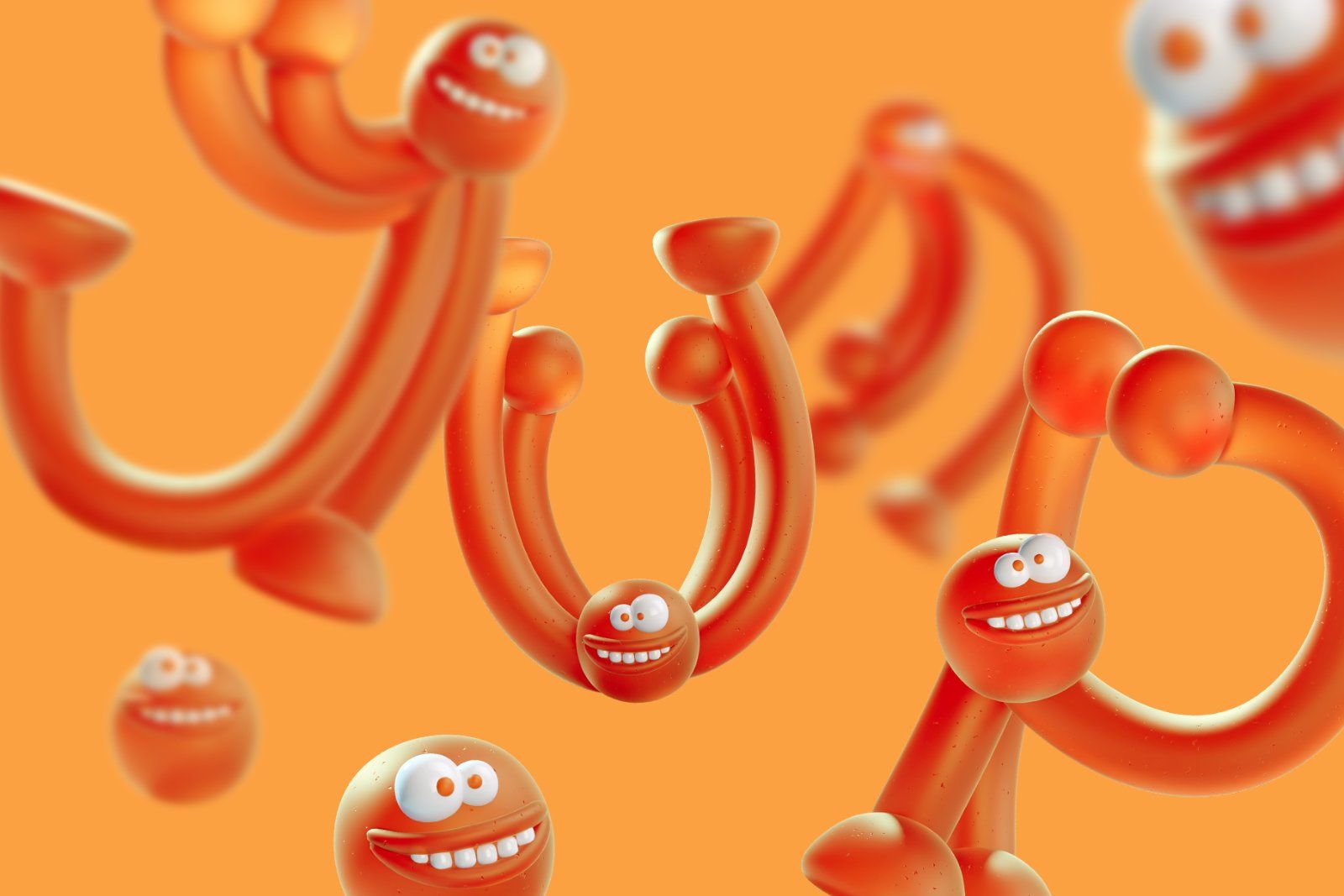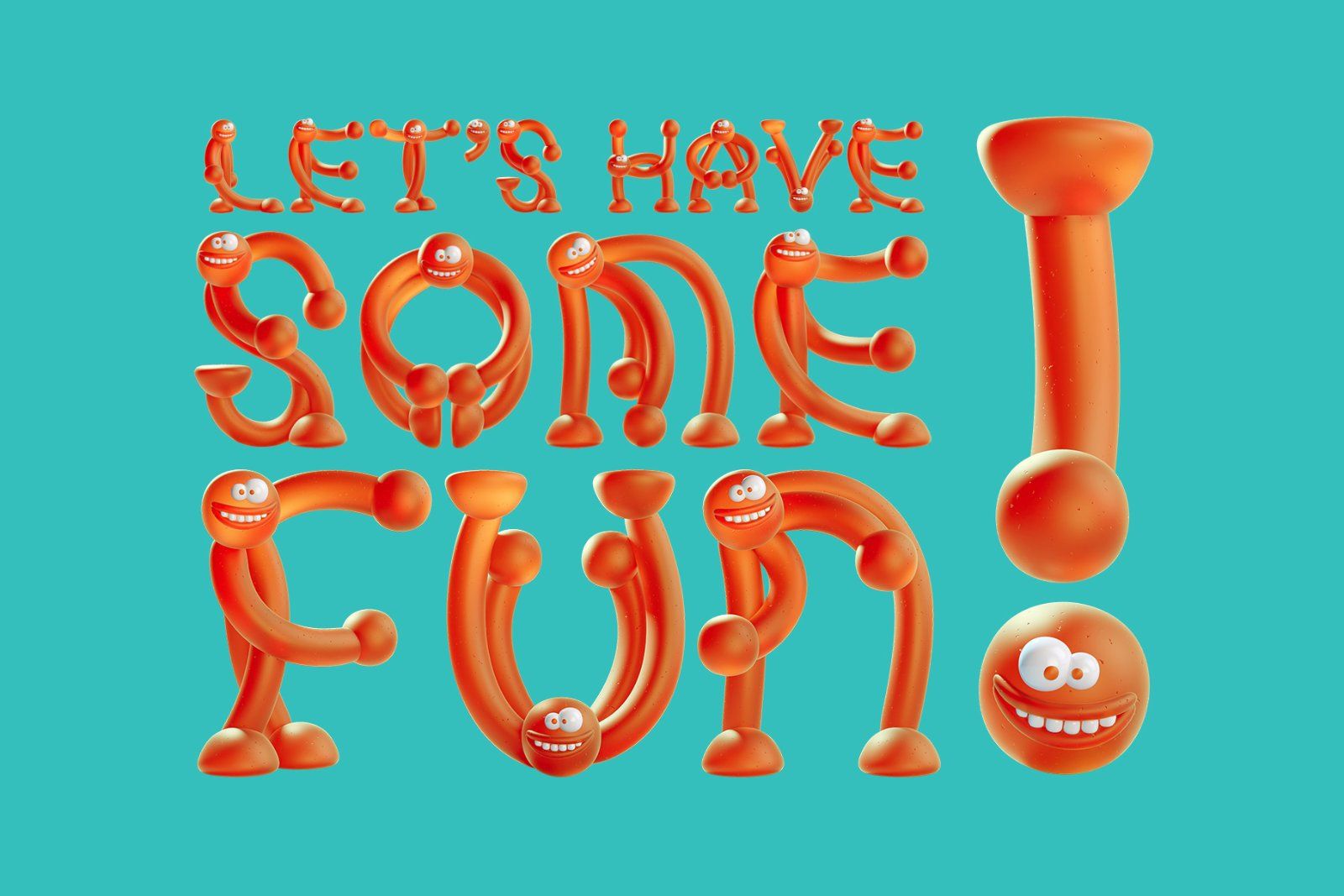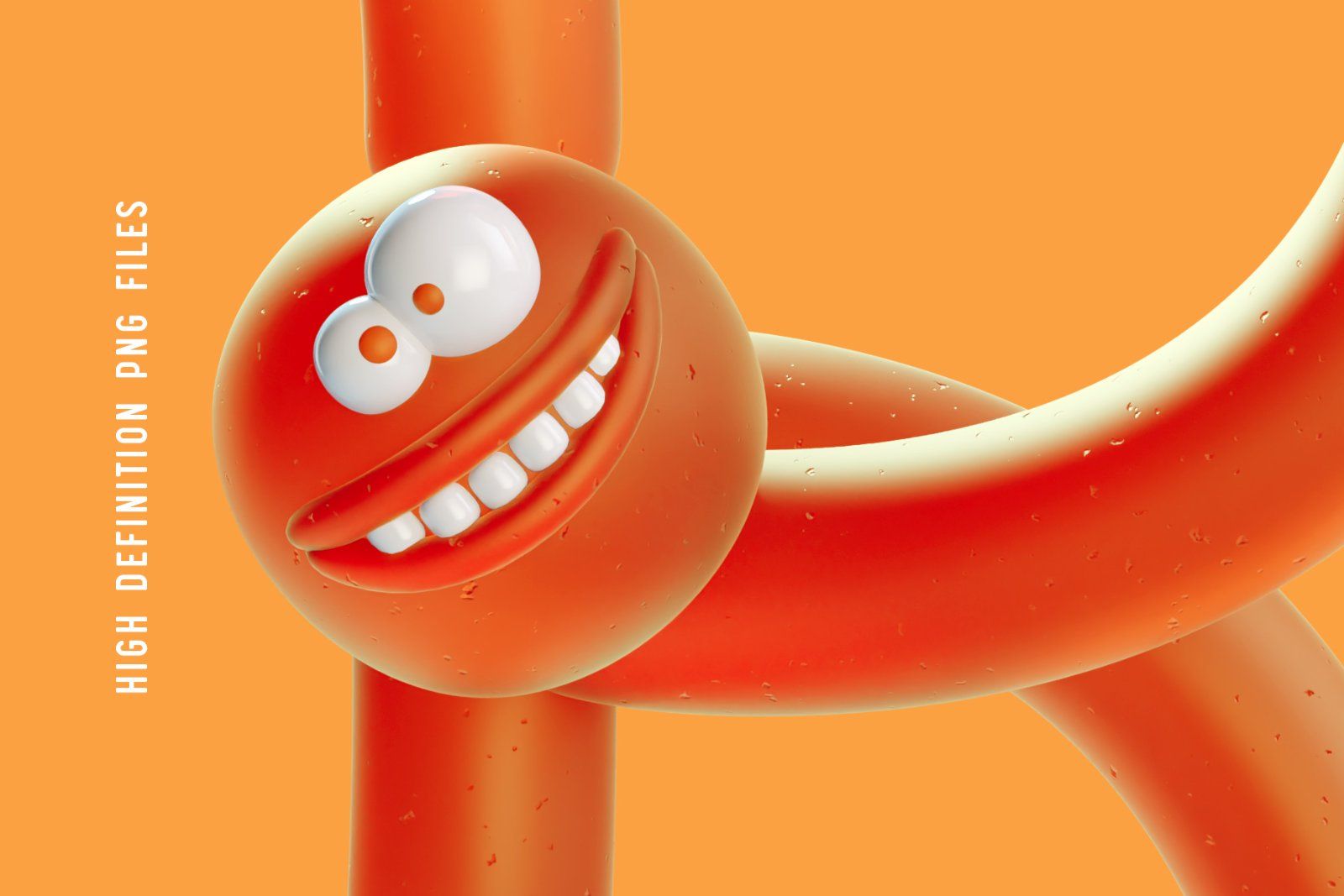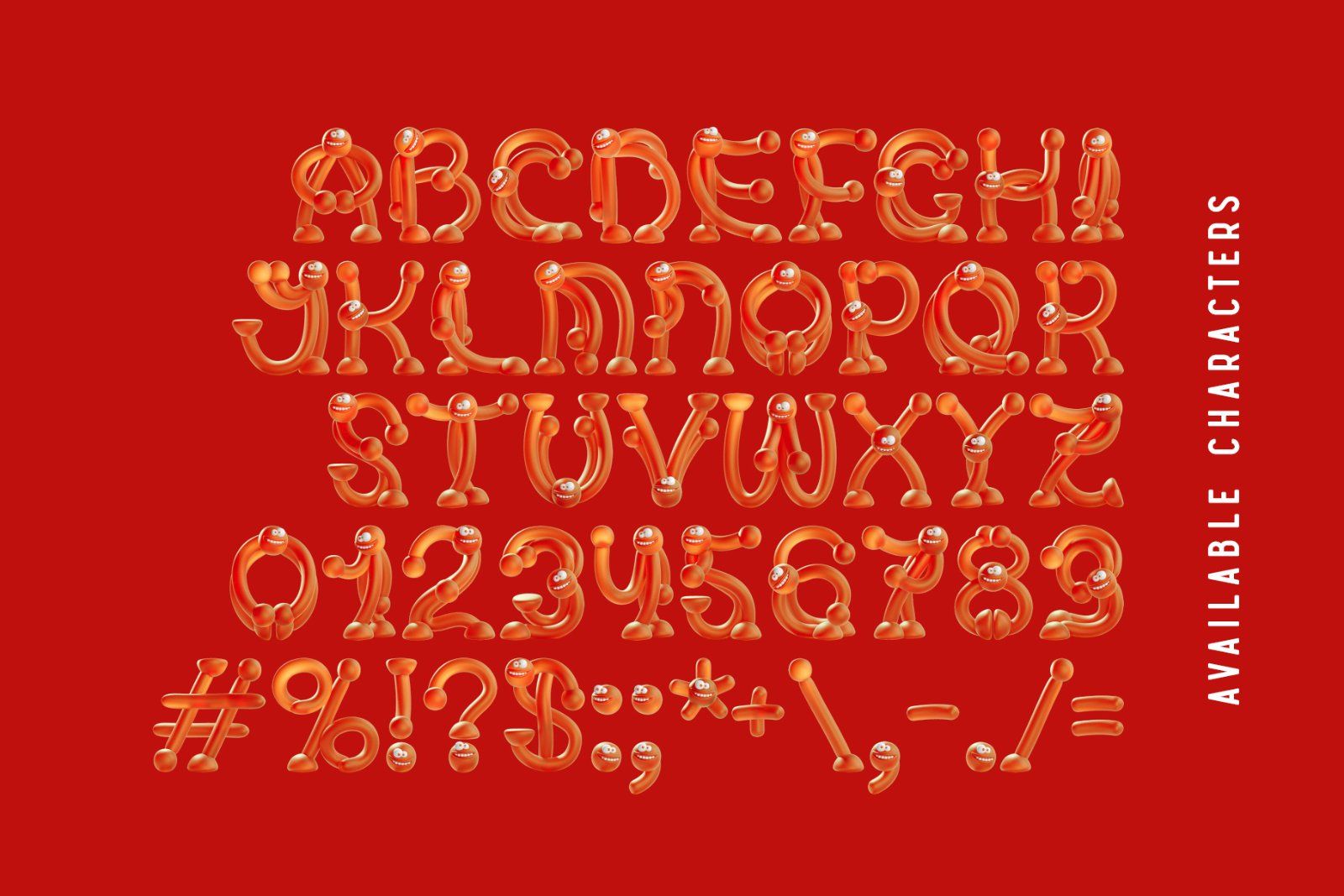
Hello! Presenting a sweet font set – Orange Humans. It's a 3d rendered typeface made of 3d cartoon humans standing in a shape of letters. First of all it's a color bitmap OpenType-SVG font that can be used as a usual OTF font. Also a set of full resolution PNG files with transparent background is included. Consider that only English language and basic punctuation is supported, please check out the screenshot with all available characters.